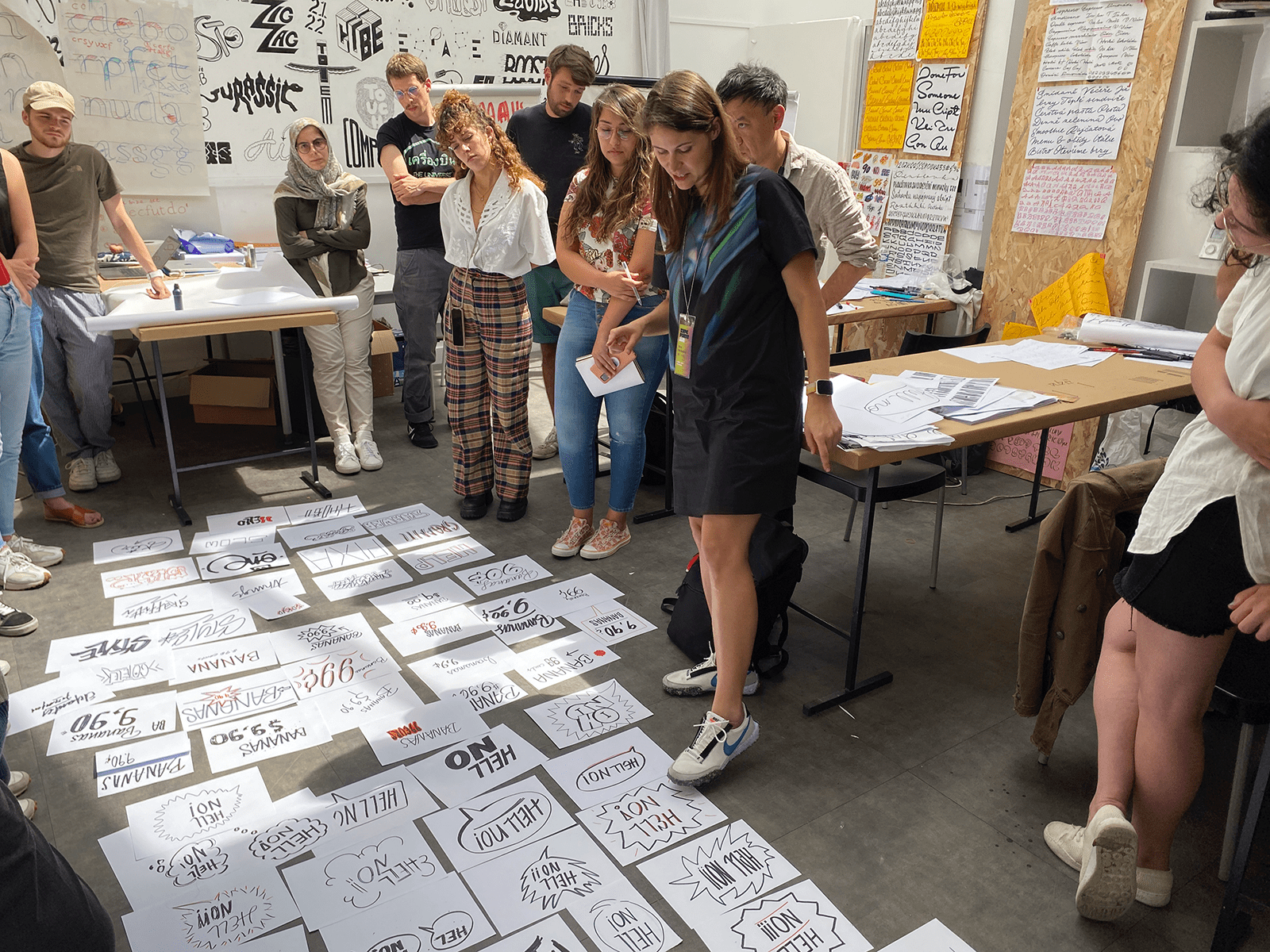
Phase #1: building the basis
After two years of mandatory break due to the pandemic issues, we’re so excited to be back! The first stage of the programme is definitely the most dynamic and varied of all phases: introduction, calligraphy, lettering, first international talks, library visits, guest reviews and even a garden party!
A general presentation by the team of the programme to the eighteen attendees was the starting point of this specially desired edition. The same morning, Jean François Porchez and Gina Serret showed the basics of the humanist calligraphy. This practice serves as a kickoff for the students to understand how physical tools such as a broad-nib pen, its position on the paper and the ductus –the proper movements to create each letter– are directly related to type design. They basically learn to identify the key strokes of the Latin writing system.
Before going back home, the attendees learned also to letter drawing on tracing paper based on their previous calligraphic exploration. They stabilized letterforms while they also discovered the various attributes and axes of a design space (contrasts, modulations, serifs, terminals…). Designing a typeface means crafting a multitude of systems that must function together!
During the second day of the programme, we had the pleasure of hosting Petra Dočekalová, who run a lettering workshop. New tools, techniques and lettering styles which enlarged students’ letterform outlooks.
Right away, first international talks took place, with Petra Dočekalová and Neville Brody on stage. With Petra we learned how local letterforms in history had influenced her work, driving her to master crafts such as calligraphy, lettering and signpainting. And how important is for her the willing of transmit all these skills. On the other side, Neville captivated us with several cases from his early days as a designer –exploring with technology when the Mac came along– to his most recent commissions. He especially focused on the importance of the language, “a contract between two people”; which perfectly summarize type definition: a mix between convention and creativity.
To begin the second week, we visited the Bibliothèque de l’Arsenal and the Bibliothèque Mazarine, where the attendees had the chance of studying several rare book collections from 15th to 19th centuries and amazing type specimens. Later on, the visit to Typofonderie’s library complemented this research of historical references for each attendee in order to start building their personal project briefs.
The always stunning visit to the Bibliothèque Mazarine.
Those days we had also the pleasure of receiving Toshi Omagari as a guest critic and lecturer. Together with Nadine Chahine, he led the second evening of TypeParis22 talks.
Apart from the visits, along this second week, the eighteen attendees also worked hard on the expansion of their first type design exercise, understanding the design space variables and ending up with very satisfactory results!
By the end of this first phase, students are ready to start building a brief for their personal typeface project, discussed and refined during the next stage of the programme. Stay tuned!
Petra Dočekalová concluding her lettering workshop.